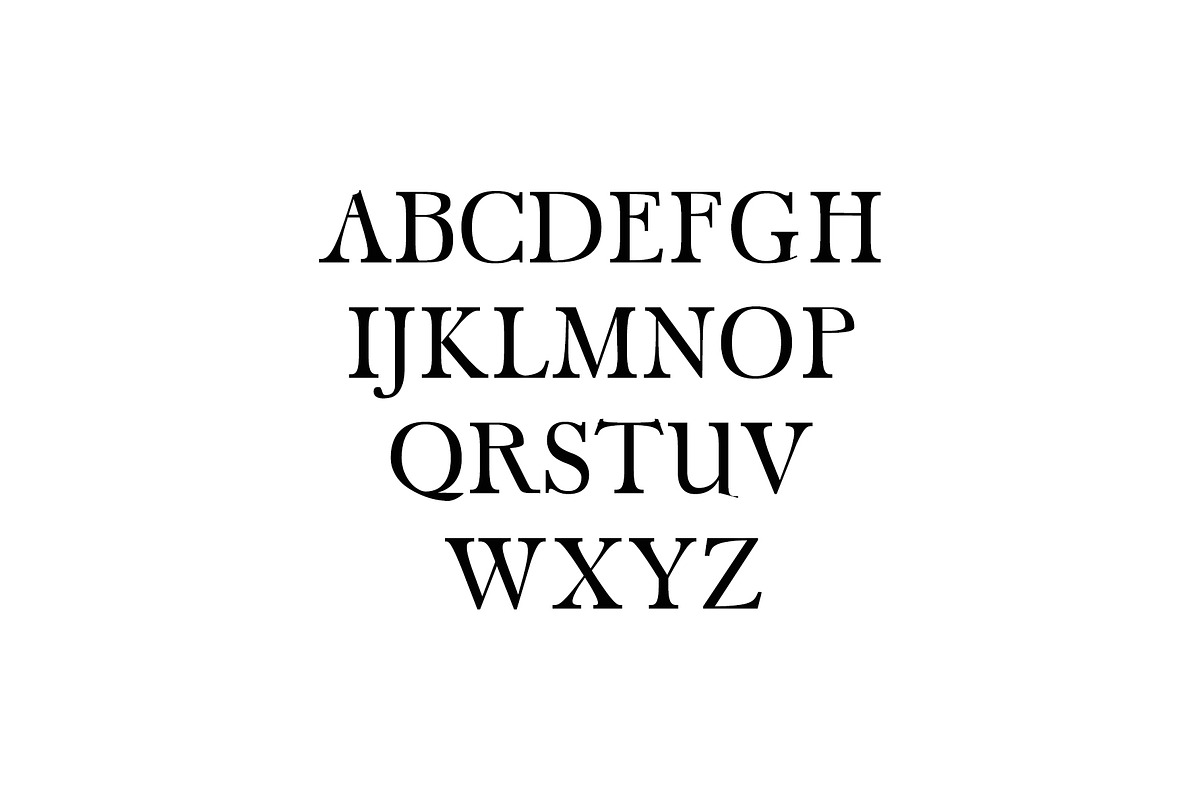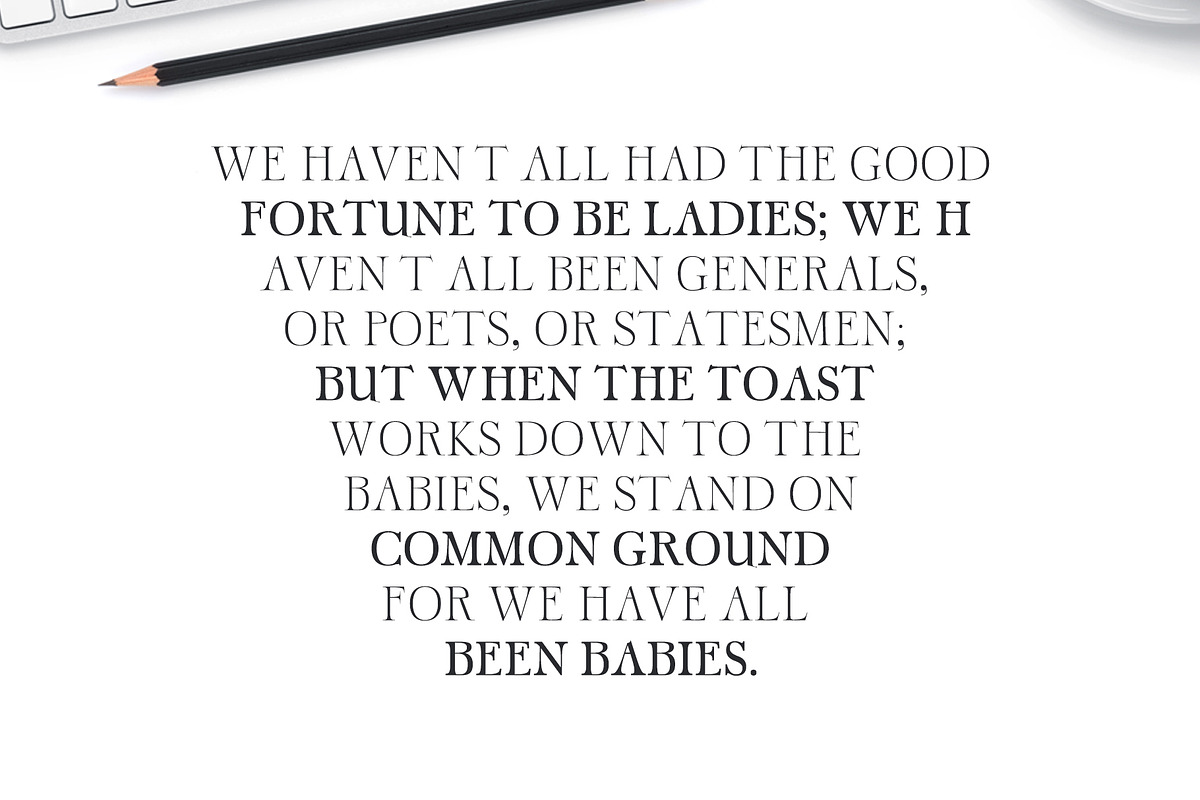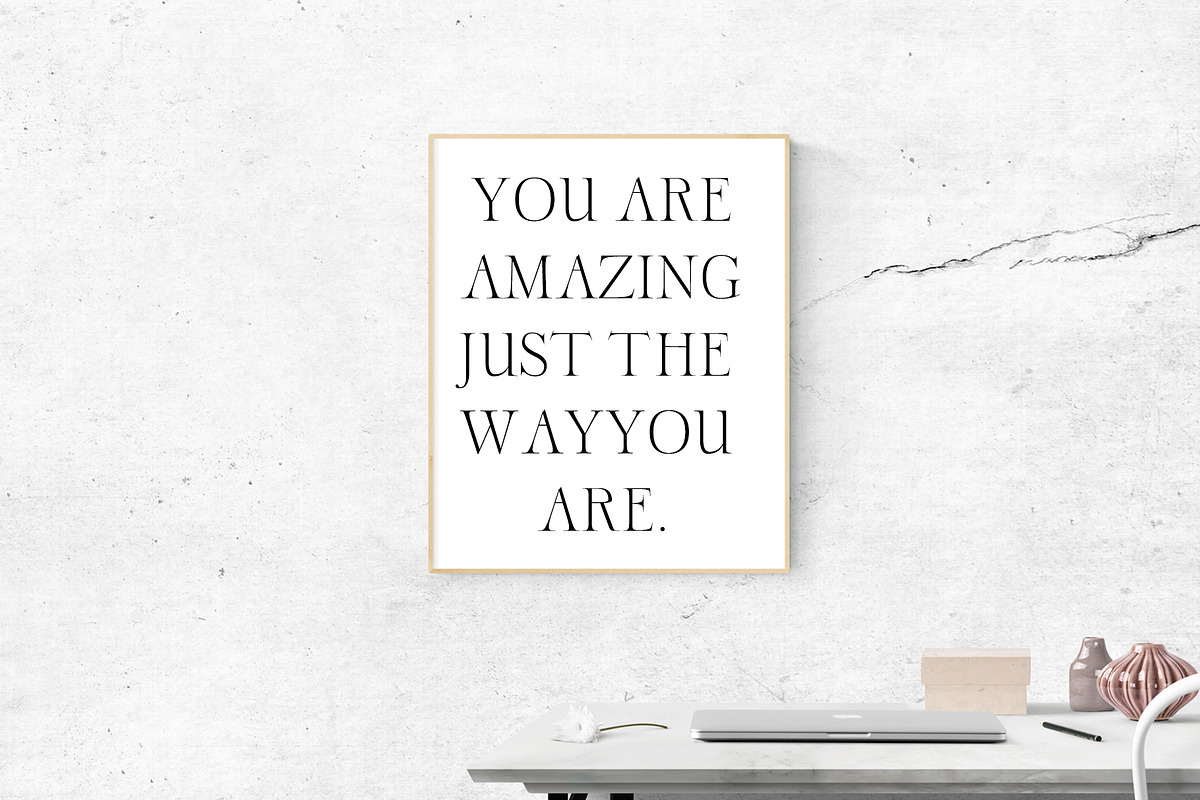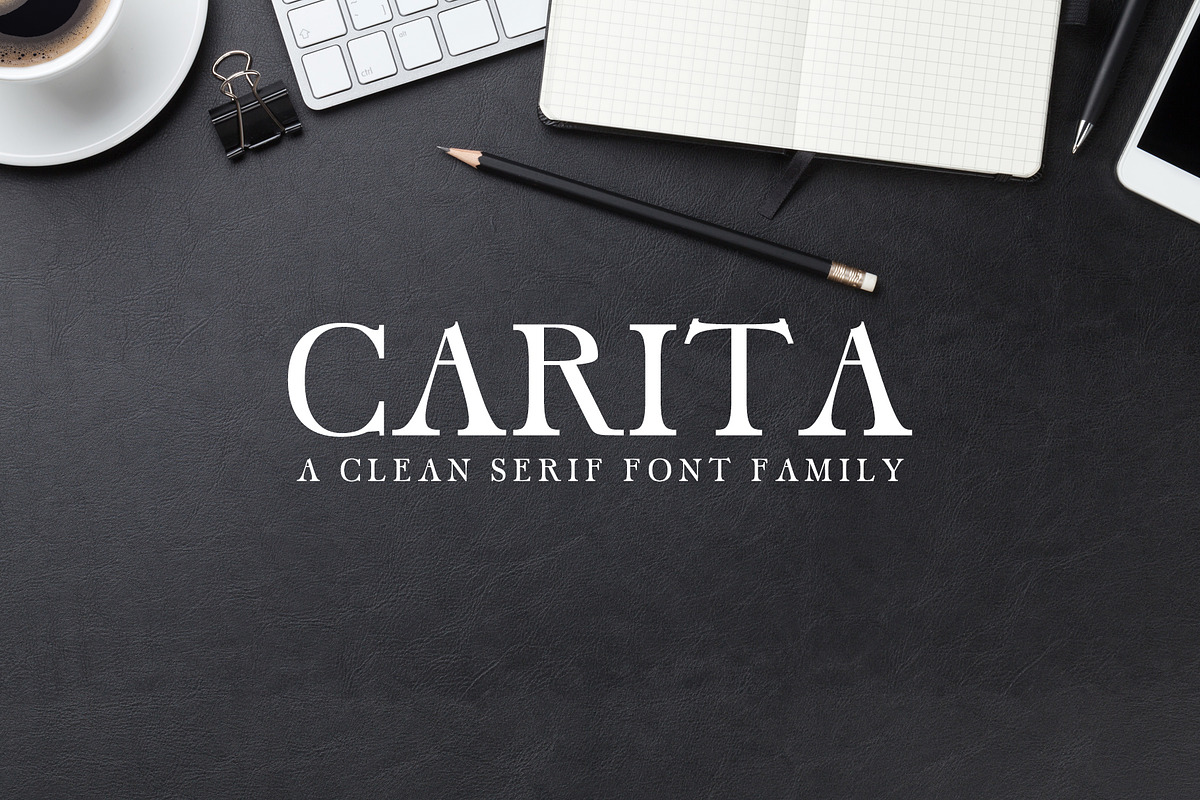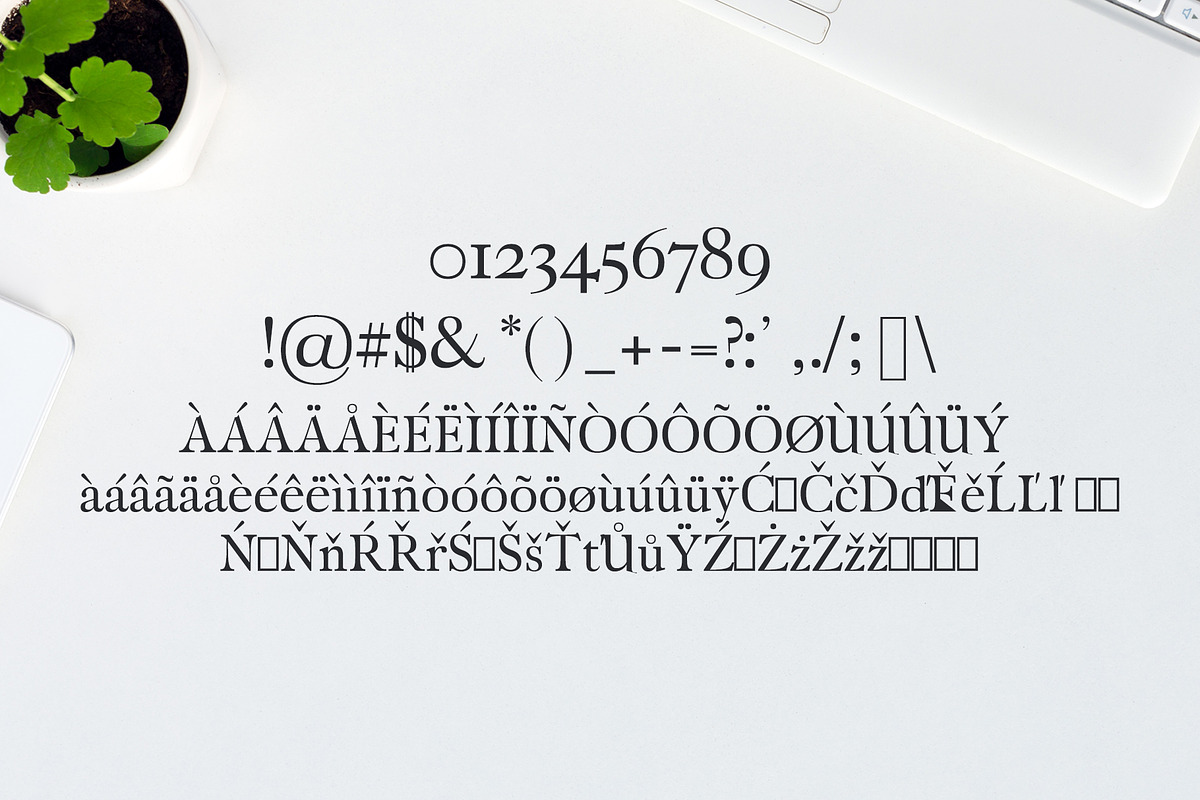
Carita Clean Serif 3 Font Family
Carita Clean Serif 3 Font Family by Creativetacos is a font selected for branding, posters, packaging, typography.
- Includes 3 weights The perfect choice for Modern, Fashion & Magazine Titles.
- Regular, Thin and Light Weights
- Carita Thin
- Carita Light
- Carita Regular
Why Carita Clean Serif 3 Font Family is worth a look
Carita Clean Serif 3 Font Family by Creativetacos fits naturally into Branding, posters, packaging, typography.